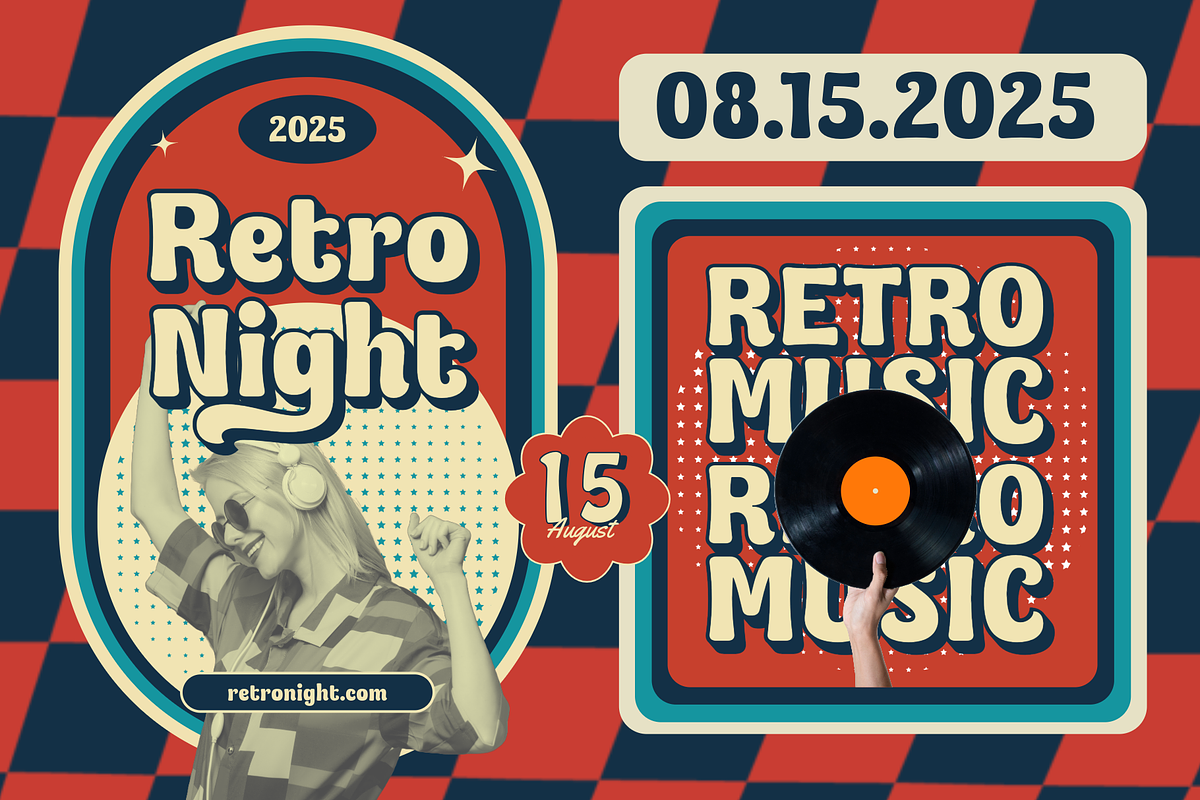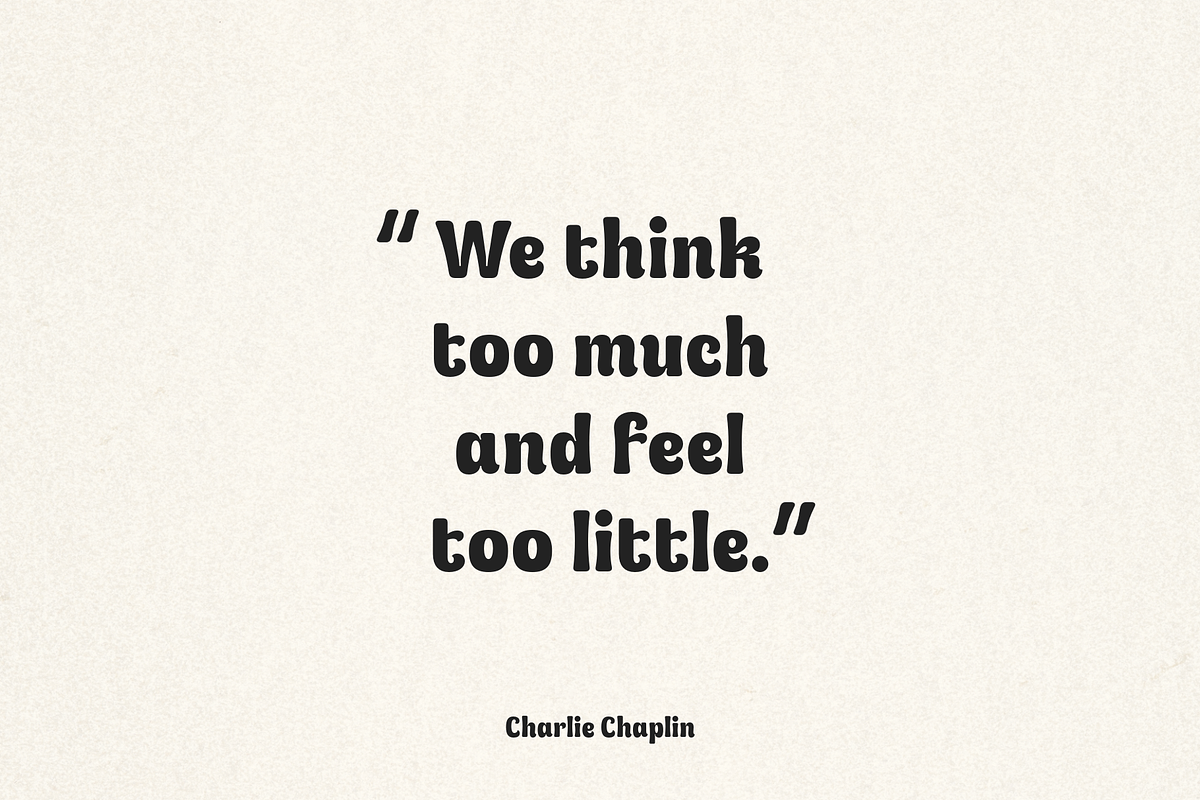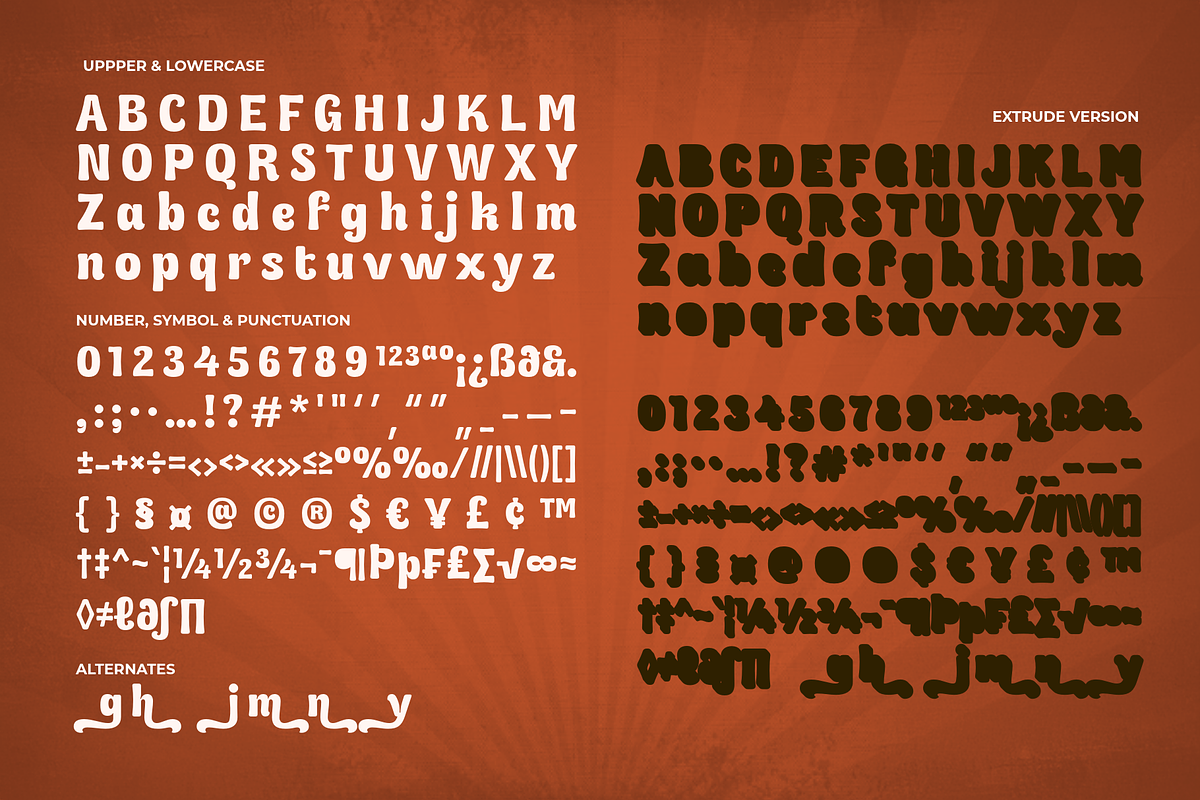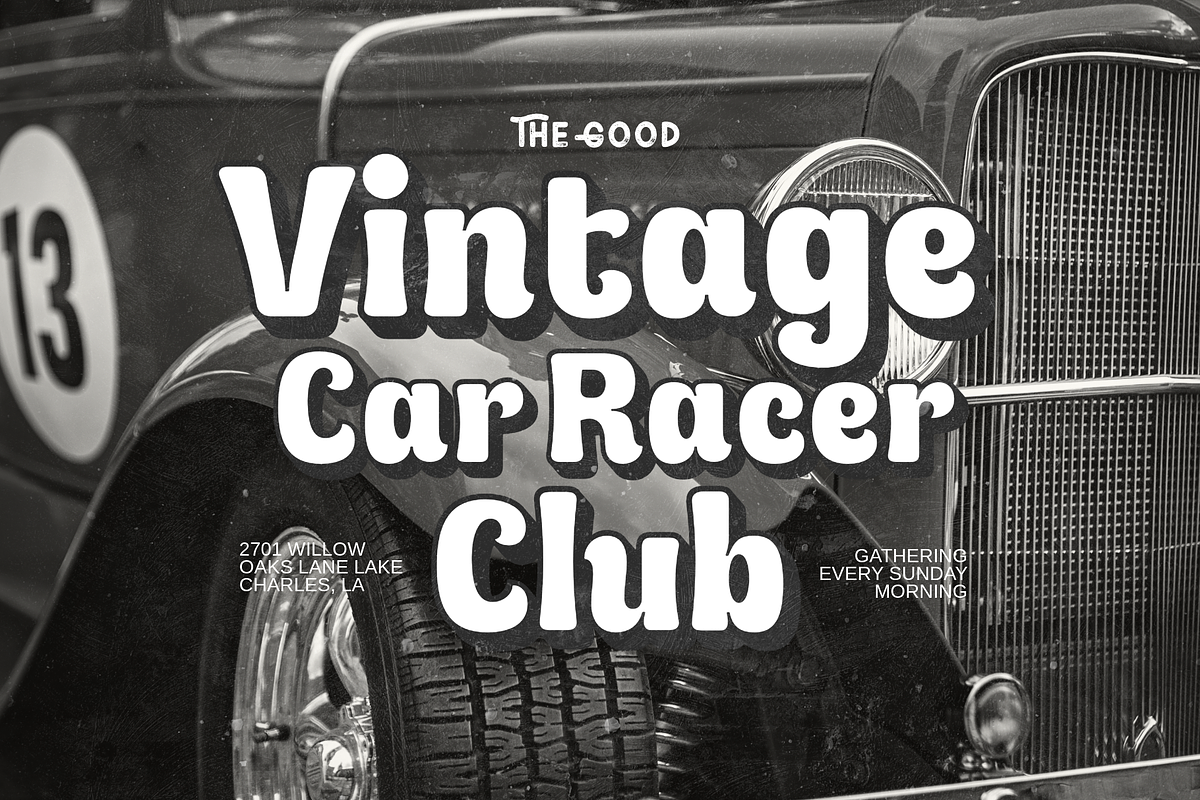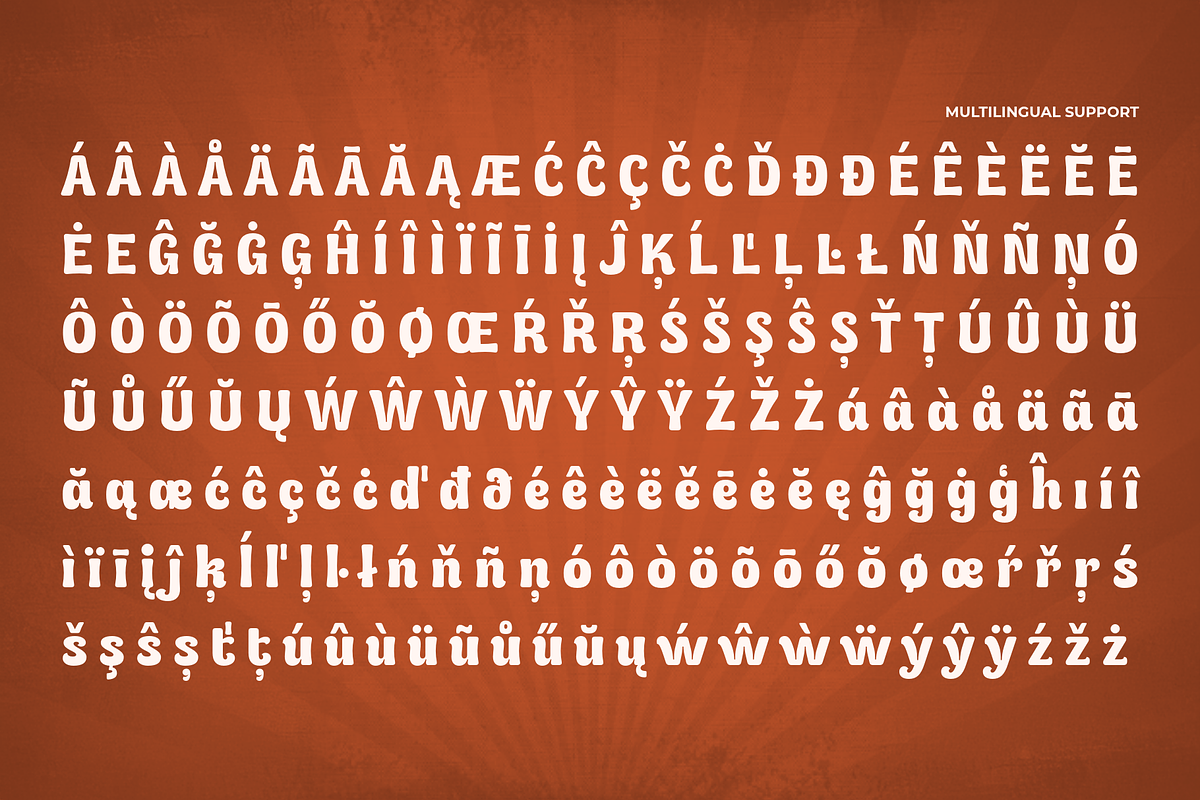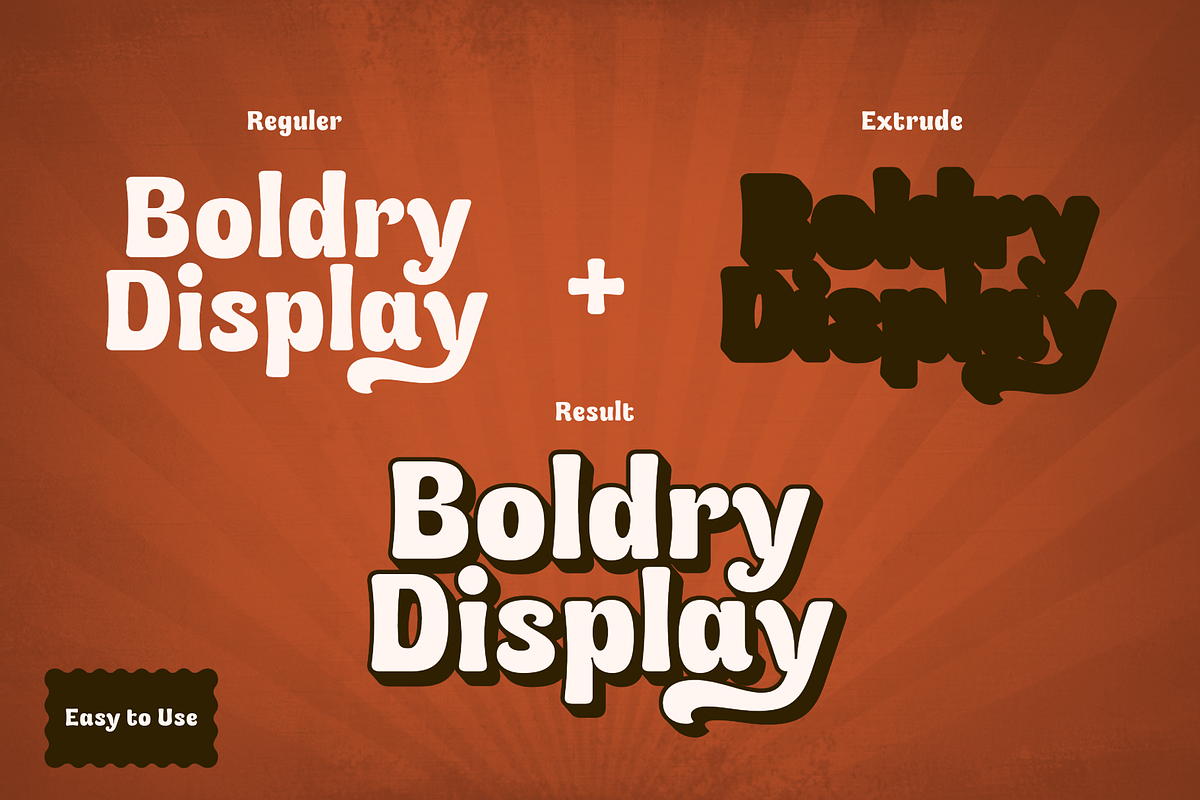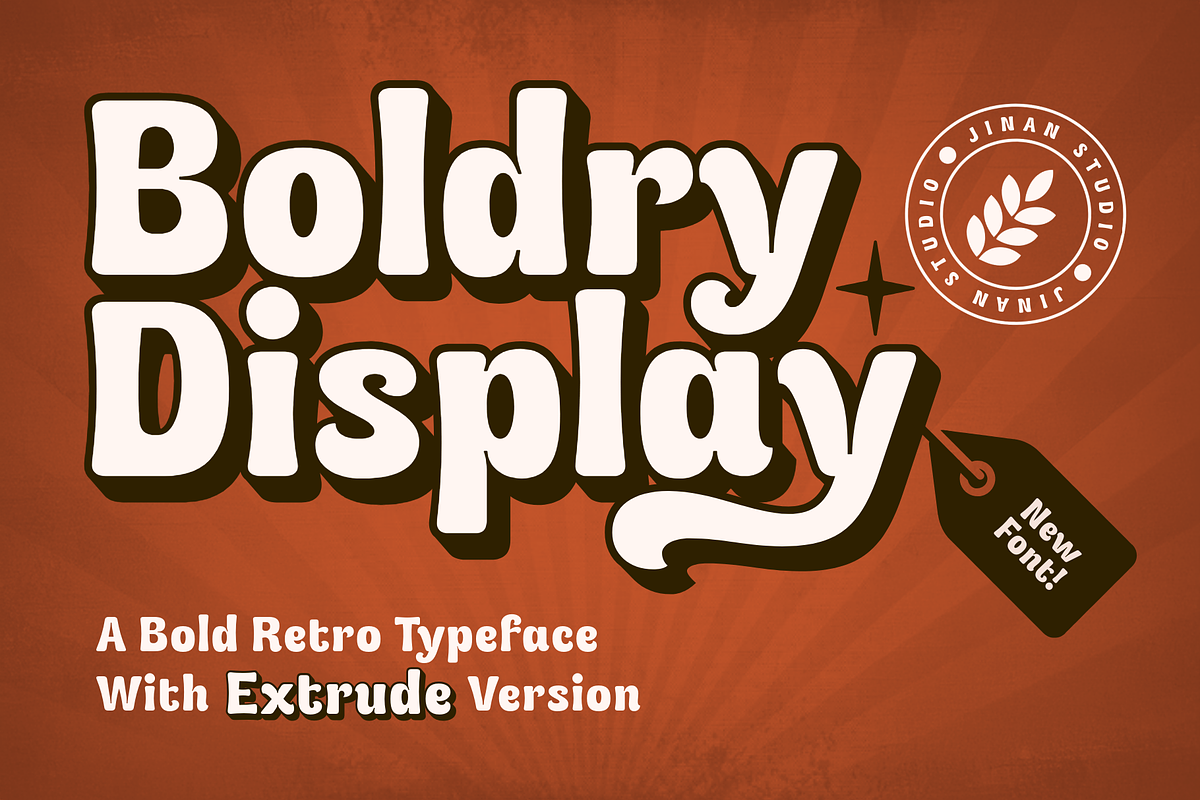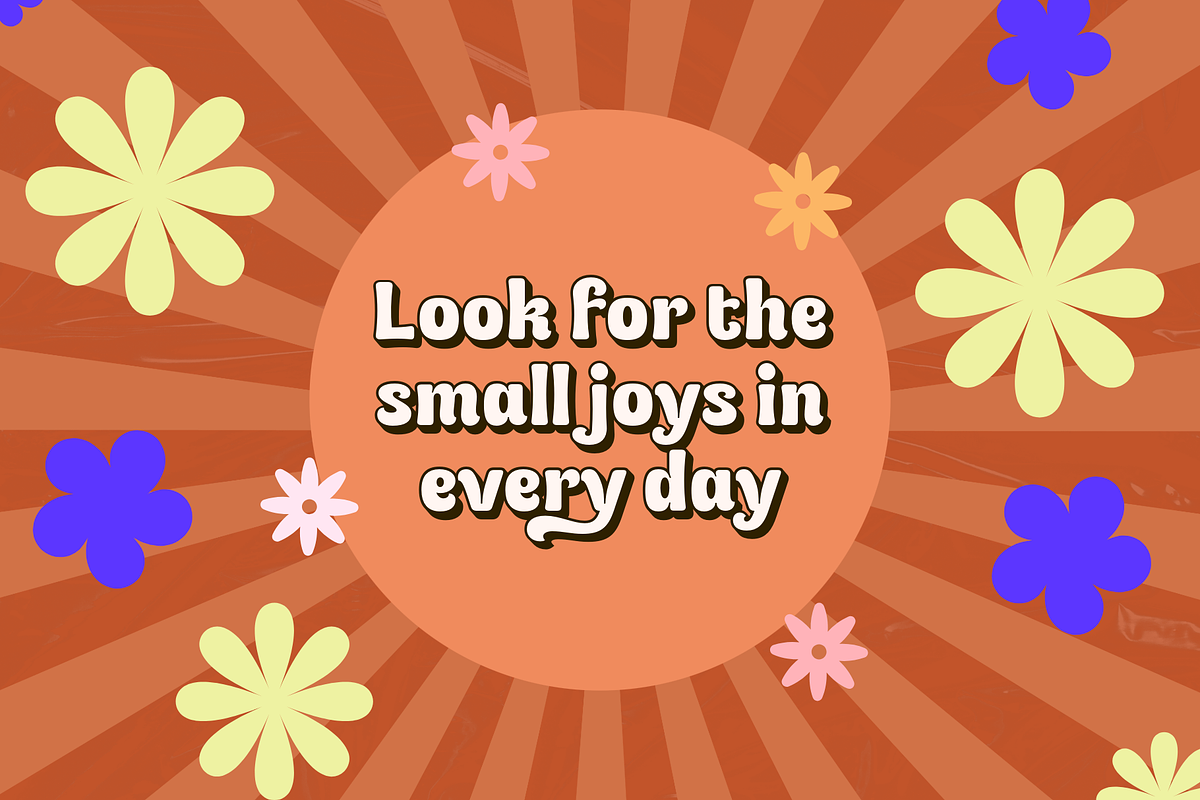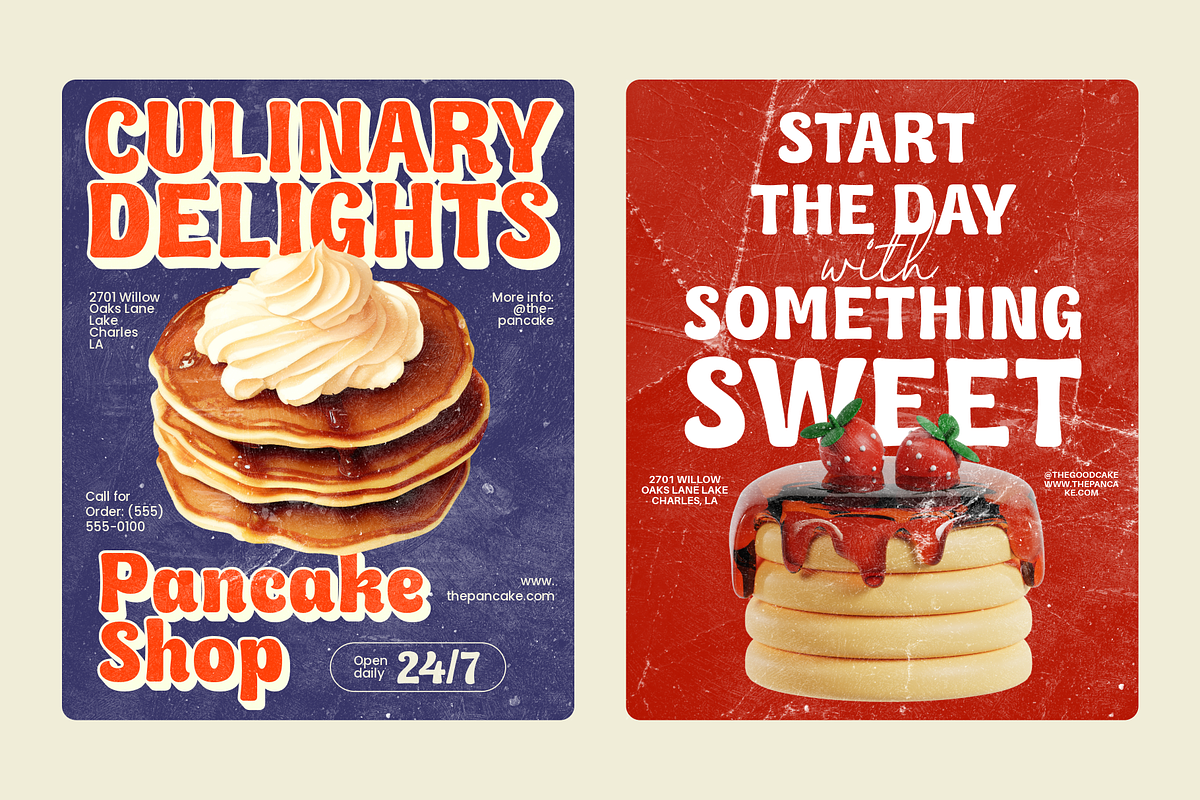
Boldry Display
Boldry Display is a bold retro typeface that captures the fun, charm, and energy of vintage design. With thick, rounded letterforms and a playful personality, this font is perfect for projects that aim to feel both nostalgic and timeless. Ideal for logos, posters, packaging, headlines, and branding, Boldry Display stands out with its striking presence and includes an extrude version for added depth and style. Whether you're creating a retro-inspired design or want to inject some bold character into your visuals, Boldry Display brings a vibrant and authentic touch to any creative project.
- A set of uppercase and lowercase glyphs
- Number, symbol, and punctuation
- Extrude Version